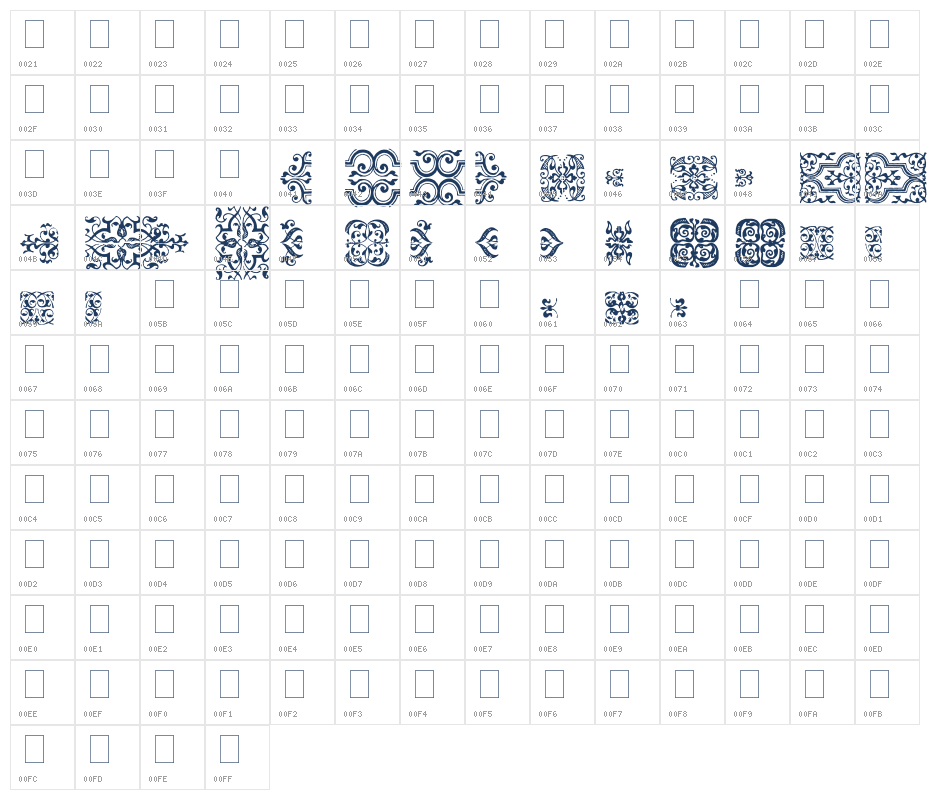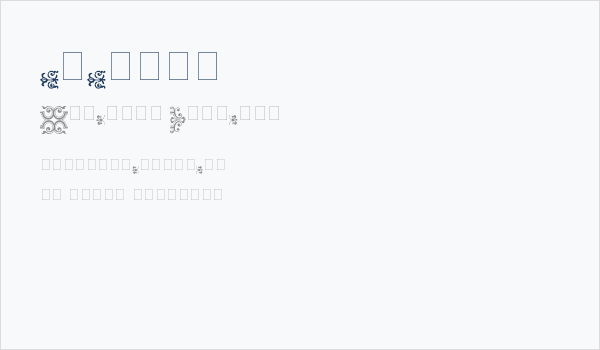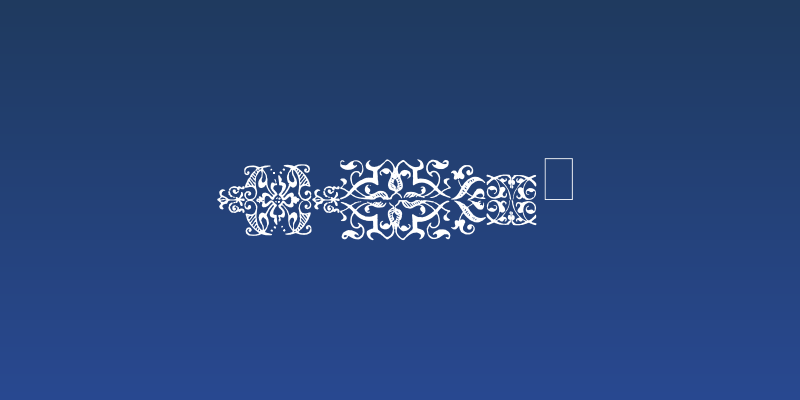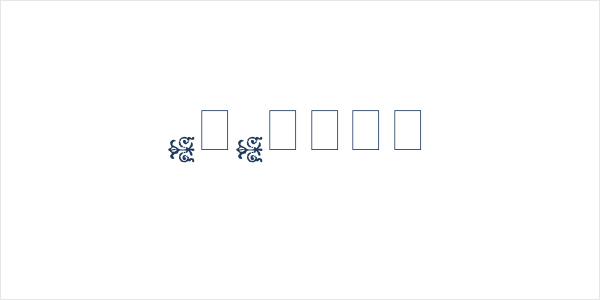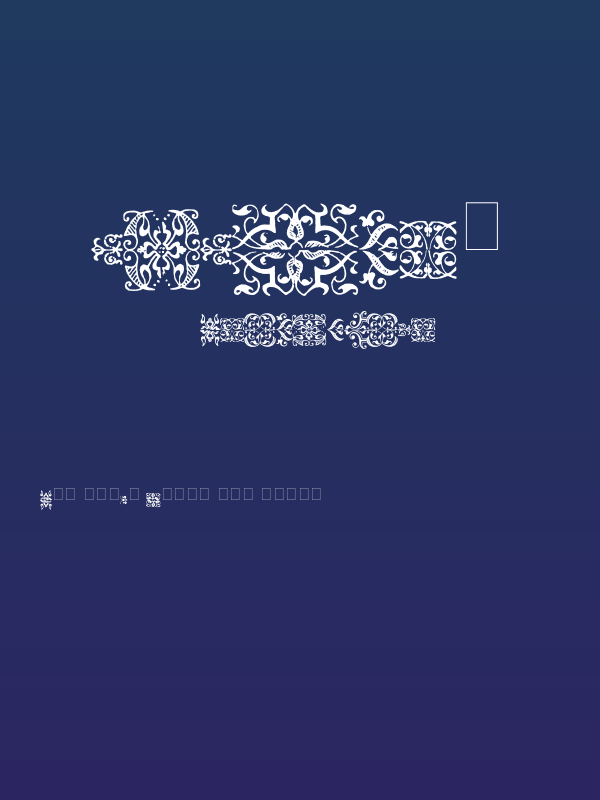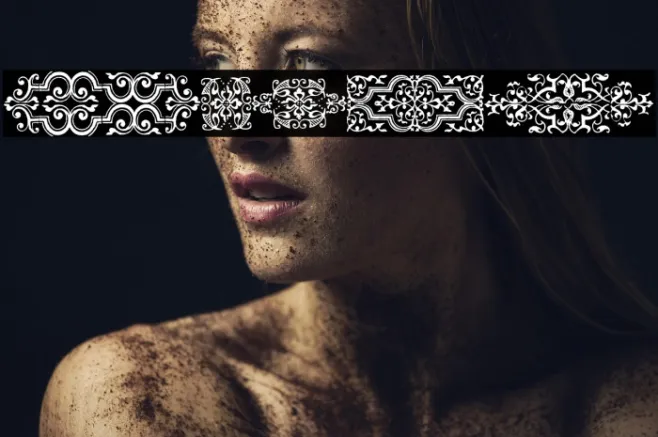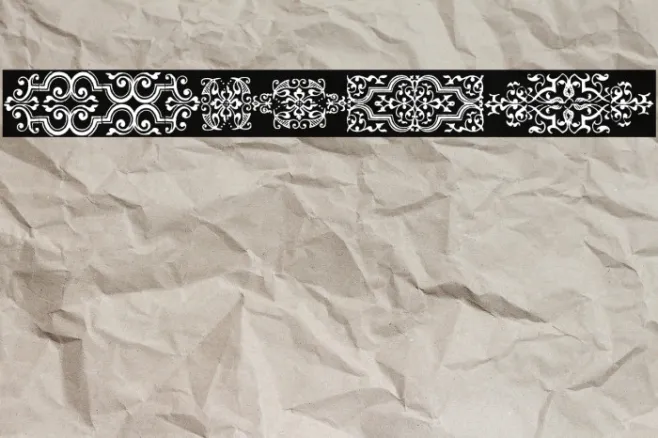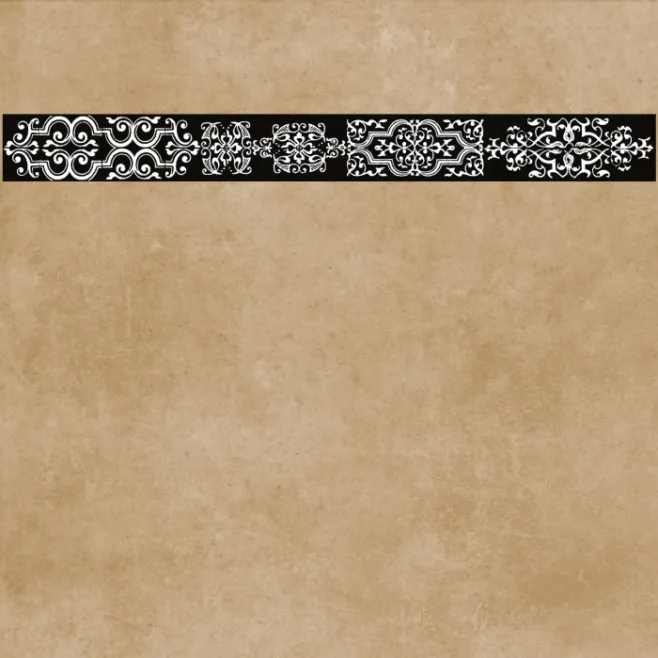
FeFlow1 Font
FeFlow1 Description
Highly decorative and intricate ornamental font with elaborate flourishes and symmetrical patterns, primarily used for embellishments rather than text.
| Overall Style | Vintage, Ornamental |
| Use Case | Decorative accents, logos, invitations, certificates |